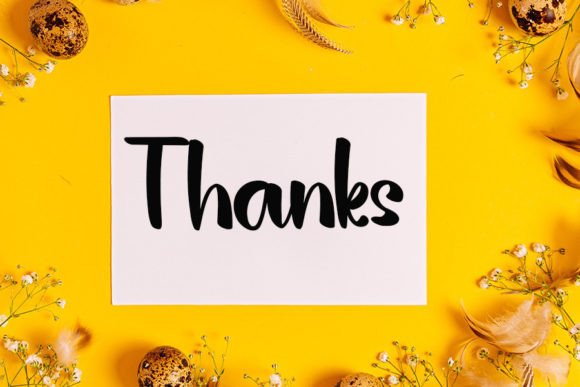
Introduction to King of Sheep Font
Have you ever stumbled upon the perfect font while working on a creative project, and suddenly everything falls into place? For designers, finding the right font can be the difference between an average design and a spectacular one. That’s exactly what happened when we discovered the King of Sheep Font – a beautiful, elegant, and highly versatile handwritten font.
With its unique touch and timeless style, the King of Sheep Font is a valuable resource for any designer looking to elevate their work. Whether you’re working on a personal project or a client-based design, this high-quality font is sure to make your creations stand out. And the best part? It’s free to download, making it an accessible design resource for anyone looking to take their creative projects to the next level.
Imagine adding a touch of sophistication and elegance to your designs with the King of Sheep Font, and effortlessly creating visually appealing graphics with its transparent background. The possibilities are endless, and we can’t wait to share the full potential of this incredible font with you.
Key Features of King of Sheep Font
- Features a unique, hand-drawn style with a transparent background
- Designed to be versatile and suitable for a wide range of applications
- Includes a range of characters, including uppercase and lowercase letters, numbers, and punctuation
- Perfect for use in digital design, print materials, and other creative projects
Honest Review: King of Sheep Font
I recently had the chance to work with the King of Sheep Font for a creative project, and I was pleasantly surprised by its unique character and versatility. This free download has become a valuable addition to my design resource library.
What works well: ✨ The King of Sheep Font features a high-quality, hand-drawn design with a transparent background, making it perfect for overlaying text on images or creating visually appealing graphics. The font’s intricate details and varied line weights give it a distinct, artistic feel that’s ideal for creative projects. The font’s compatibility with a range of software and devices is also a major plus.
- High-resolution, transparent background for seamless overlay
- Unique, hand-drawn design for a creative touch
However, there are some limitations to keep in mind: ⚠️ The King of Sheep Font is not as extensive as some other font collections, with a limited character set that may not be suitable for longer texts or formal documents.
Overall, I’m impressed with the King of Sheep Font’s design and functionality. While it may not be the perfect fit for every project, it’s a valuable addition to any designer’s toolkit, especially for creative projects that require a unique touch.
Tips for Getting the Most Out of King of Sheep Font
For best results, use the King of Sheep Font on a transparent background to make it stand out. Experiment with different font sizes and combinations to create visually appealing designs.
The King of Sheep Font is ideal for creative projects, such as:
- Brand identities
- Print materials